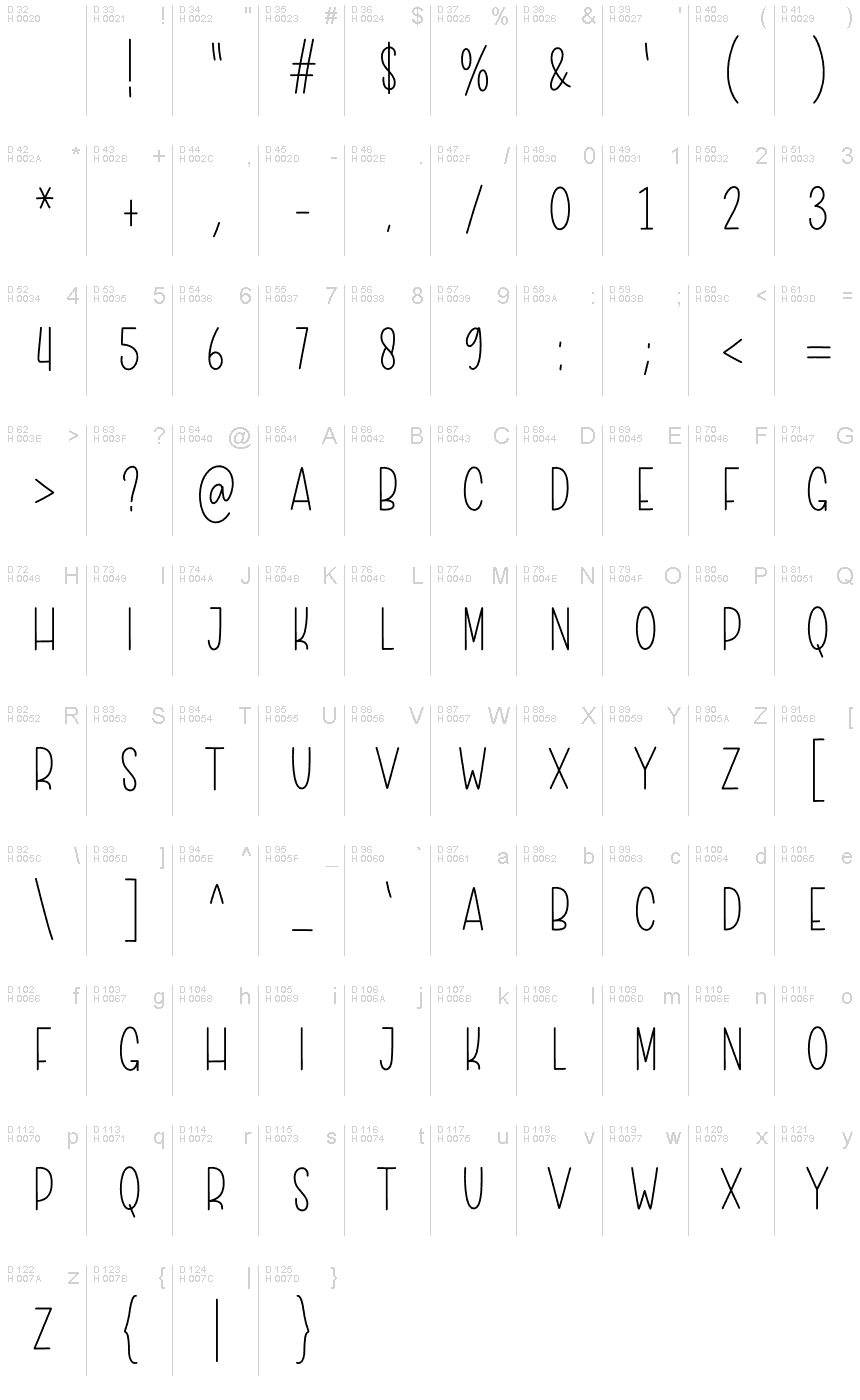
Simple Work
Simple Work, a charming handwritten font by Scratchones, brings a playful touch to any project. Its light weight and condensed width lend an air of elegance while maintaining readability.
Perfect for adding a delightful twist to logos, invitations, and branding materials. The all-caps feature allows for emphasis on important messages or headlines. With its comic vibe, Simple Work injects whimsy into children's book illustrations or vibrant social media graphics.
Let this versatile font inspire your creativity and captivate your audience with its unique flair!